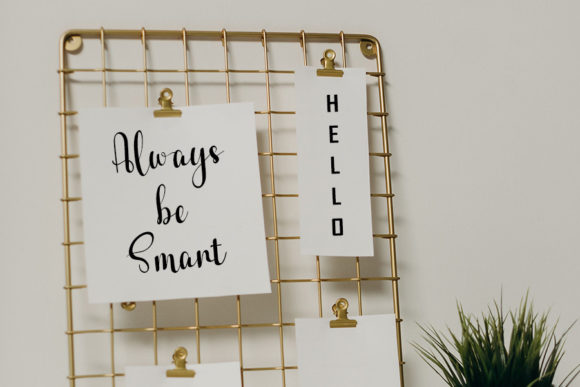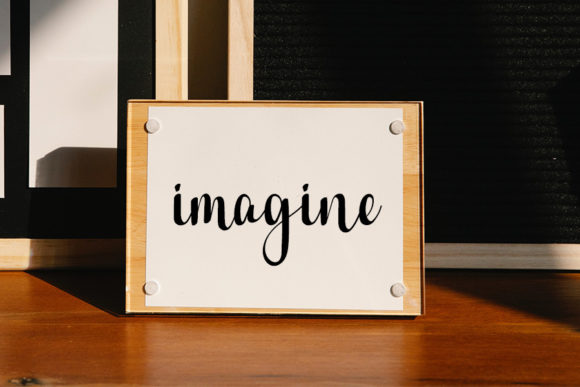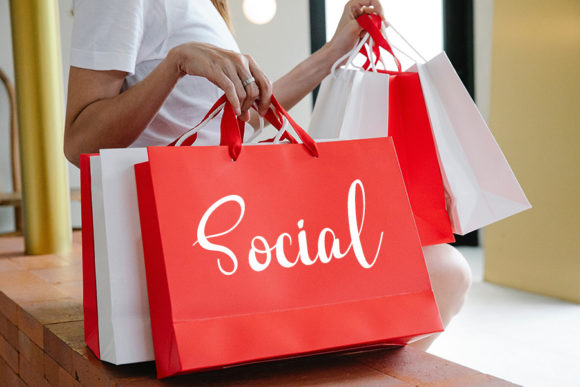
About Smileling Font
Introducing “Smileling,” a trendy handwritten font that embodies a contemporary atmosphere and impeccable form, drawing inspiration from timeless classic calligraphy. With its stylish and modern appearance, Smileling adds a touch of sophistication to any design project.
This font’s trendy and contemporary vibe makes it perfect for a wide range of applications, including branding, logos, invitations, stationery, social media graphics, and more. Its impeccable form ensures that your designs stand out with elegance and style.
With Smileling, you can effortlessly create eye-catching designs that leave a lasting impression on your audience. Whether you’re designing for print or digital media, this font brings a sense of creativity and flair to your projects.
Experience the beauty and versatility of Smileling and watch as it transforms your designs into stunning visual masterpieces. Whether you’re a professional designer or a creative enthusiast, this font invites you to explore new possibilities and express yourself with confidence and style.
Unlock the full potential of your designs with Smileling and let its trendy handwritten font elevate your projects to new heights. With its contemporary atmosphere and timeless classic calligraphy-inspired style, Smileling is sure to become a favorite in your design toolkit, inspiring creativity and sophistication with every use.